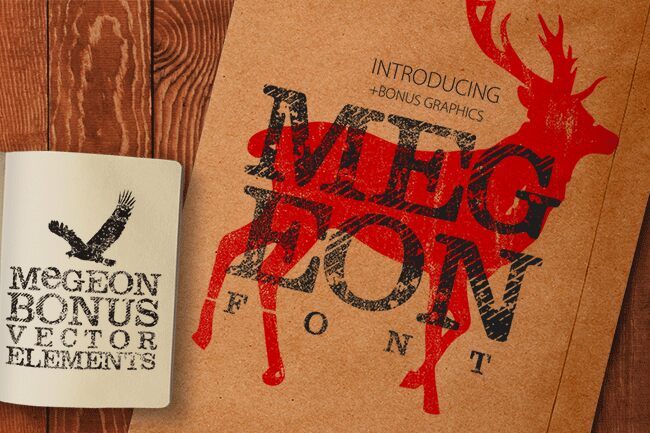
Megeon Grunge
Megeon Grunge, a striking display font crafted by designer Leonard Posavec, exudes a rugged, weathered aesthetic. Its distressed, eroded letterforms evoke a sense of industrial grit and urban decay, lending an impactful, rebellious vibe to any design. The uneven texture and rough edges create a captivating visual contrast, making Megeon Grunge an ideal choice for headlines, branding, and editorial design projects seeking a bold, attention-grabbing aesthetic.
This font's versatility shines through, as it can seamlessly transition from energetic event posters to gritty album art, its distinct character complementing a diverse range of creative applications. Megeon Grunge's unapologetic style lends itself to projects aiming to convey a sense of edginess, individuality, and unwavering strength.